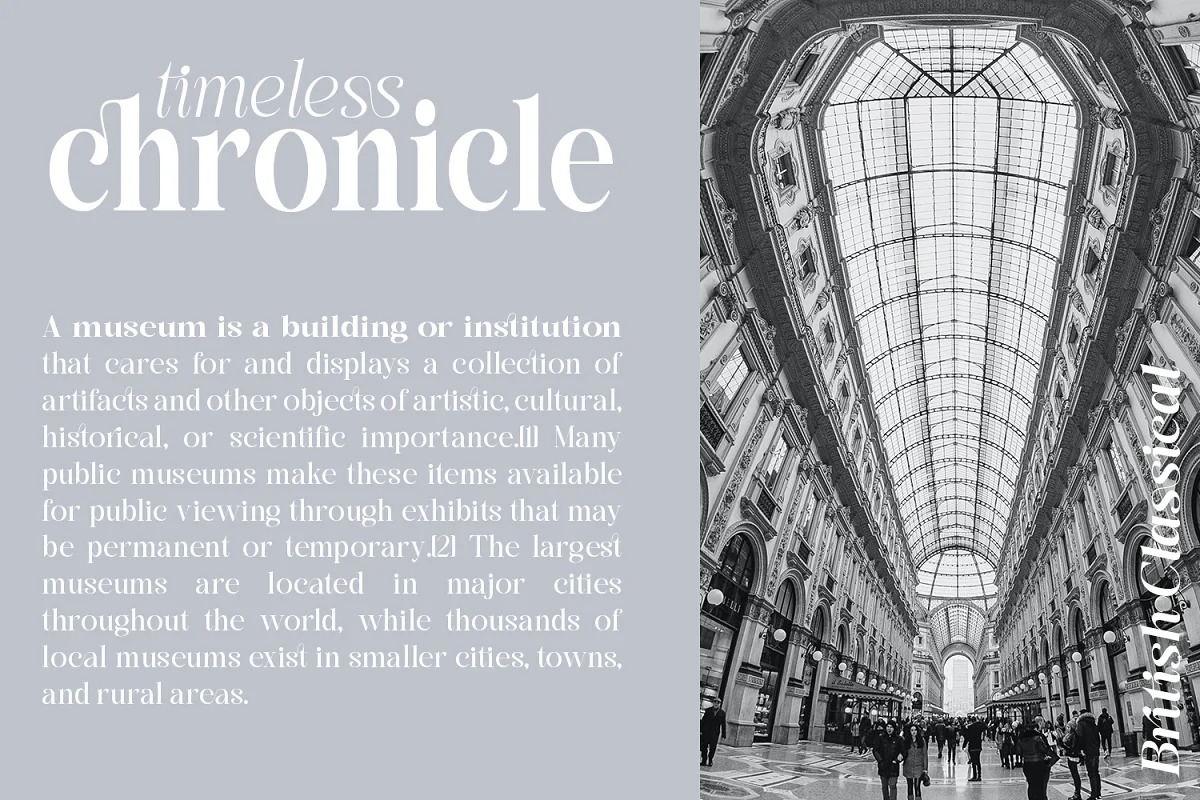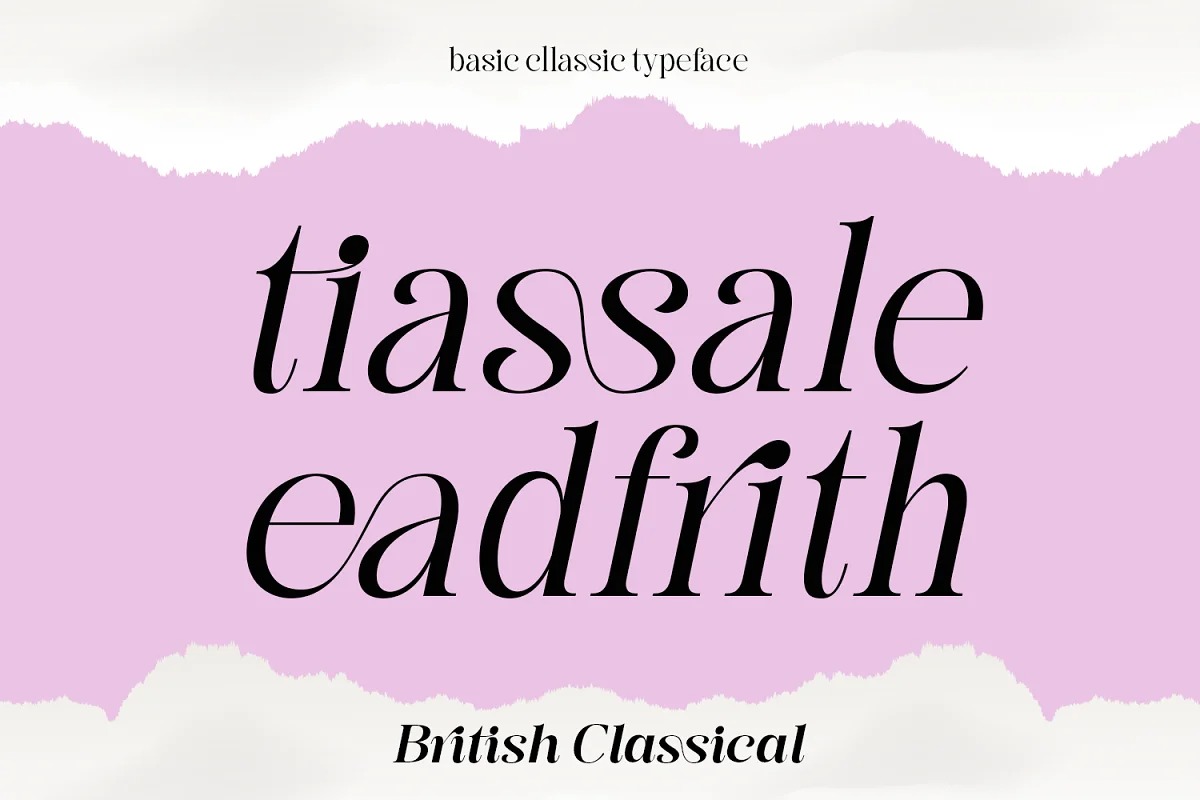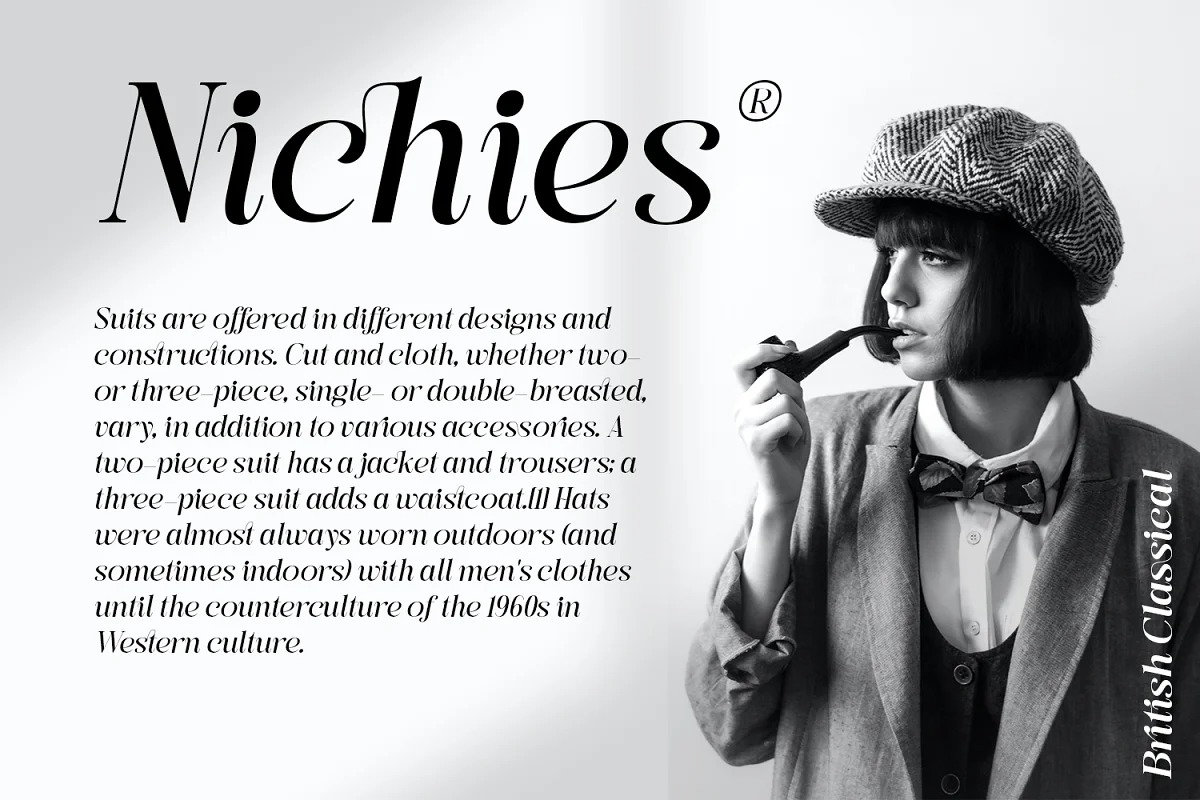
British Classical Font
British Classical Serif Font
This is a charming 80’s retro inspired typeface comes with joining ligatures that give it a fancy and unique style. It’s clean and smooth with 9 variable weight combining the regular and italic and much alternative inside. Suitable to create any branding, product packaging, invitation, quotes, t-shirt, label, poster, logo etc.